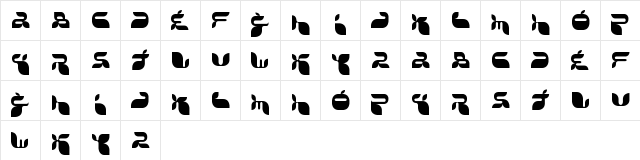
Jack Frost Regular Font Preview
Jack Frost Regular
Jack Frost Regular Font Details
Design Context for Jack Frost Typeface
Jack Frost is a composed and adaptable typeface that performs quietly and consistently across a wide range of design contexts.